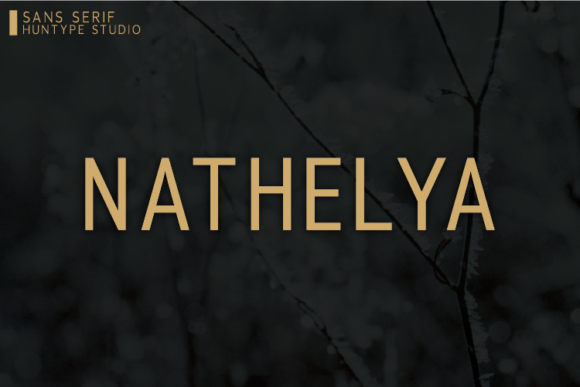
Indulge in the festive charm of Nathelya, an exquisite sans serif font meticulously crafted to elevate your creations with a touch of Christmas magic. Its delicate strokes and airy presence lend a timeless elegance that will captivate your audience.
Let Nathelya's thin, clean lines guide your words, effortlessly conveying the warmth and joy of the season. Whether you're designing enchanting posters, creating heartfelt invitations, or crafting unforgettable branding, Nathelya is your perfect companion.
Imagine your Christmas posters adorned with Nathelya's graceful curves, inviting loved ones to gather and celebrate the spirit of togetherness. Its charming letters will dance across your designs, spreading cheer and creating cherished memories.
Embrace the versatility of Nathelya and let it transform ordinary into extraordinary. Its clean lines and understated elegance make it the ideal choice for a wide range of design projects beyond Christmas. From stylish logos to eye-catching product packaging, Nathelya empowers you to create a lasting impression that will leave a lasting legacy.